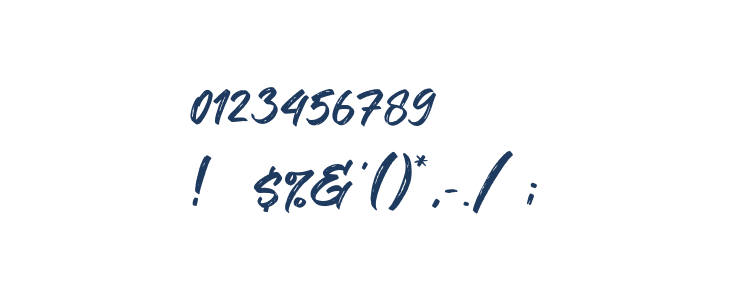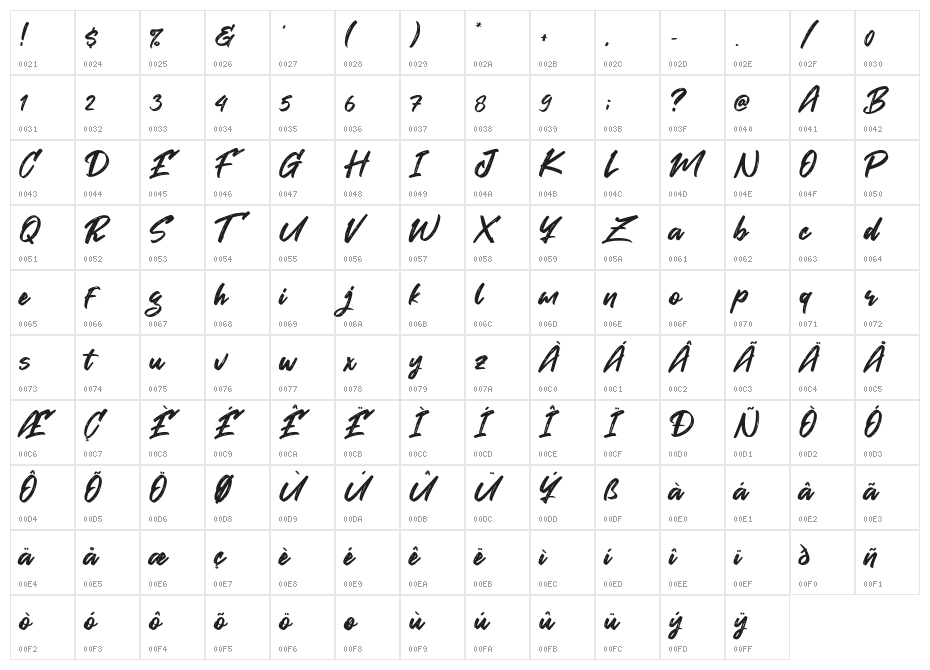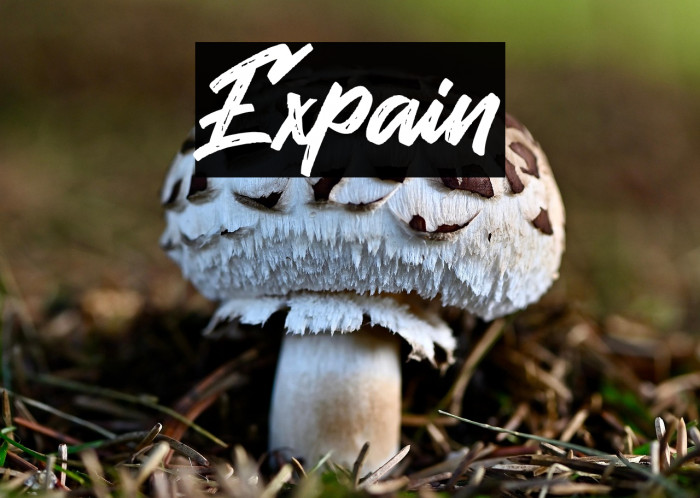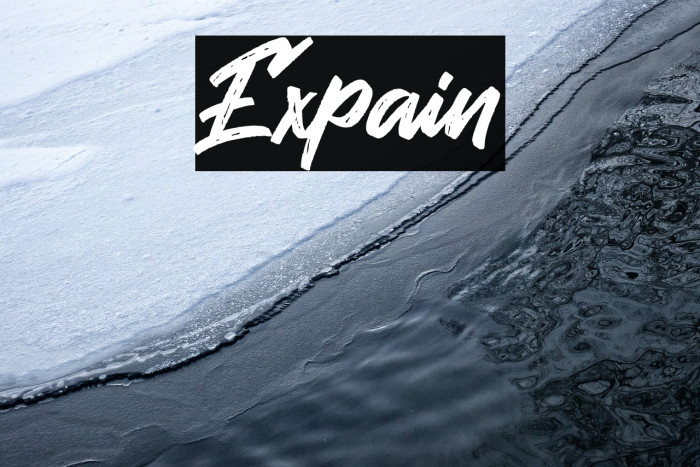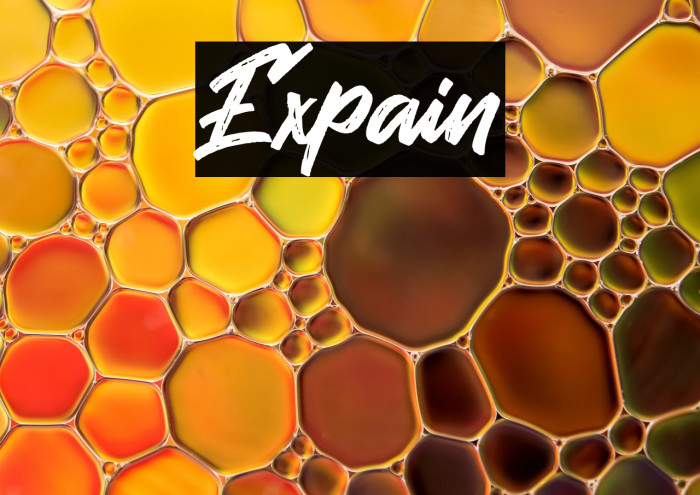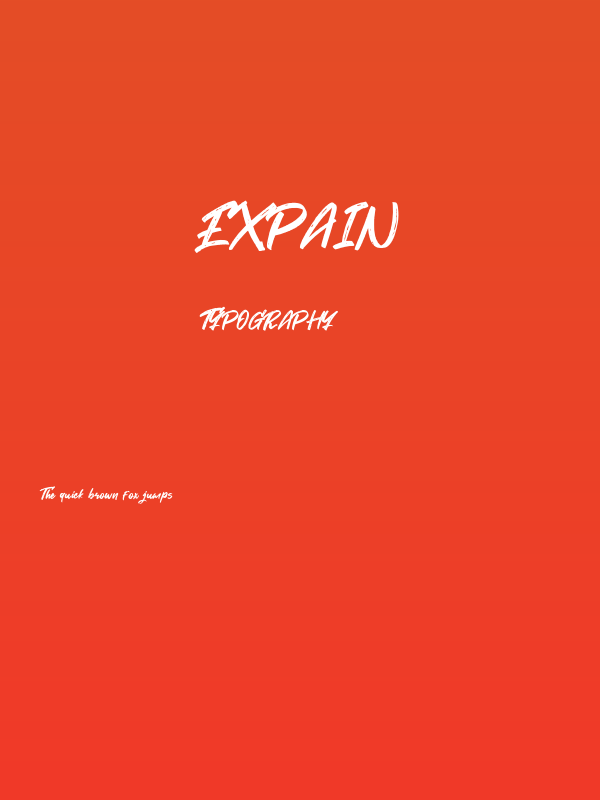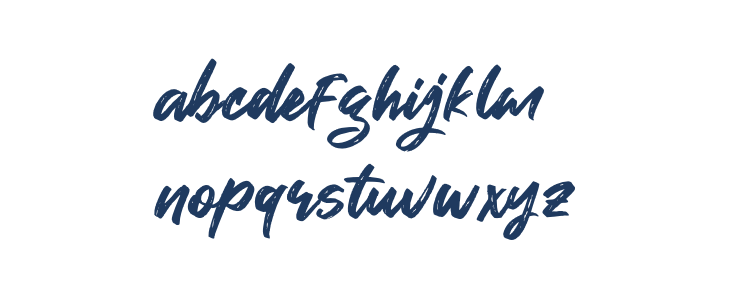
Expain Font
Expain Description
This font exhibits a bold, energetic script style with a dynamic and fluid appearance. The characters are crafted with a brush-like texture, giving them a hand-painted feel. The uppercase letters are prominent and slightly slanted, while the lowercase letters maintain a cohesive flow with varying stroke thickness. The numbers and special characters are consistent with the overall style, adding a playful yet sophisticated touch. This font's lively and expressive nature makes it suitable for creative and artistic projects.
| Use Case | Logos, Headlines, Posters |
| Proposed Projects | Ideal for branding, posters, invitations, and artistic designs that require a personal and expressive touch. |